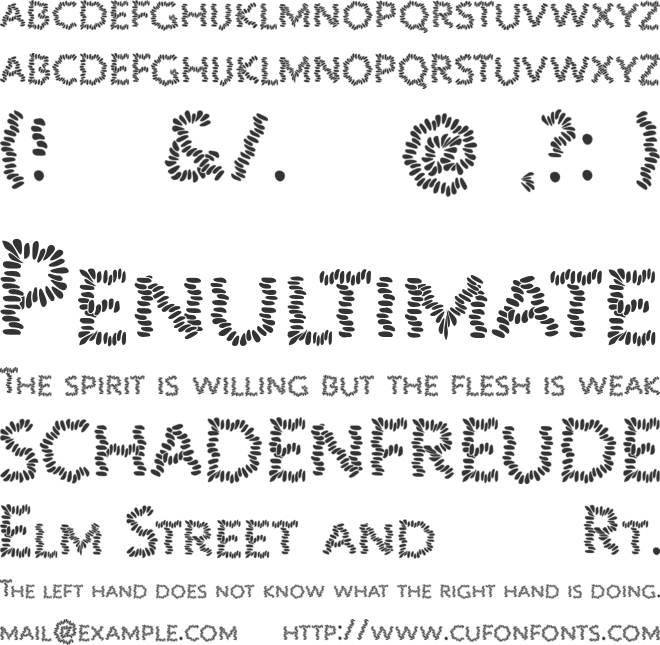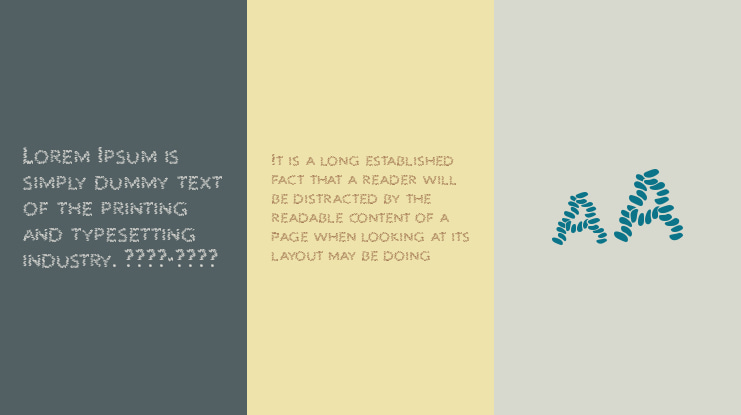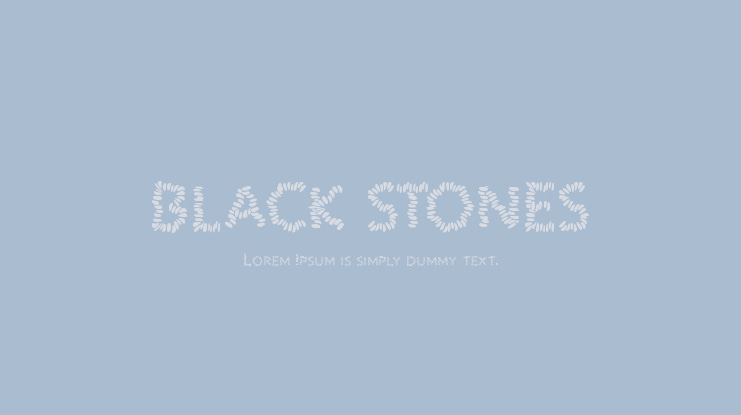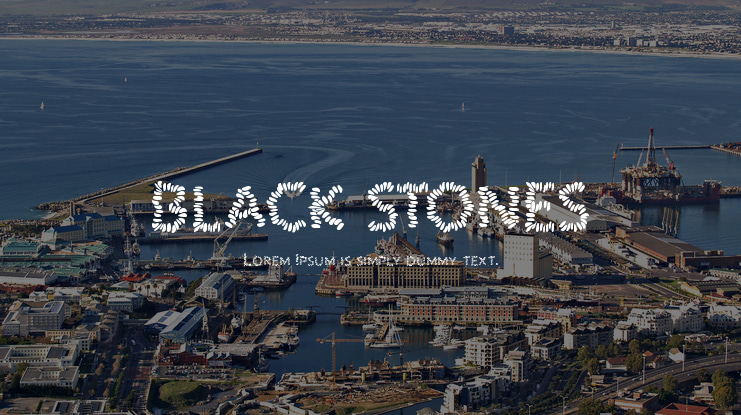
BLACK STONES Font
Martin Steiner
What is "Black Stones"? This is the latest font from Tinten-Fass.Com Design! It is whacky and fun, looks great as text, and guaranteed to make your documents more fun!